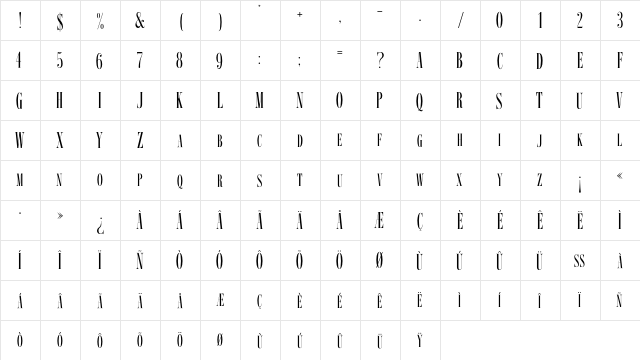
ImprimeurClassiqueEF Reg
Design Context for ImprimeurClassiqueEF Typeface
ImprimeurClassiqueEF is a composed and adaptable typeface that performs quietly and consistently across a wide range of design contexts.